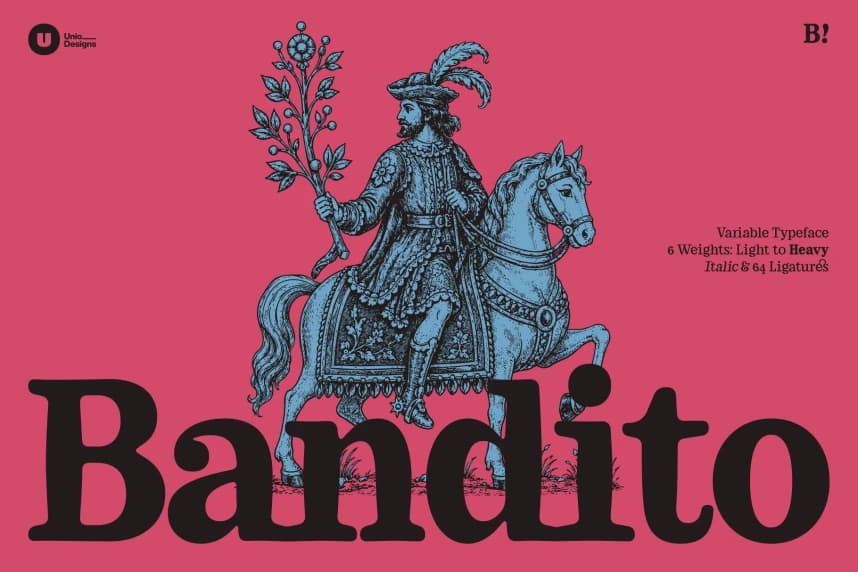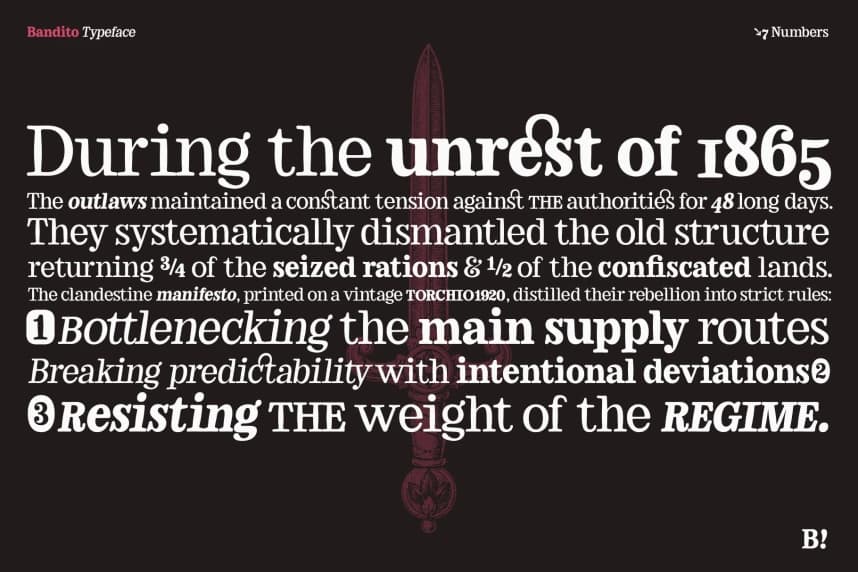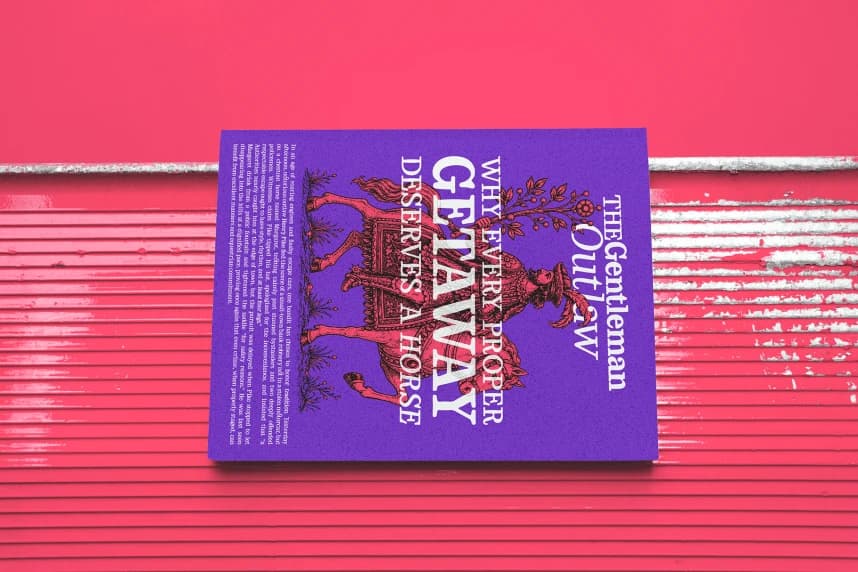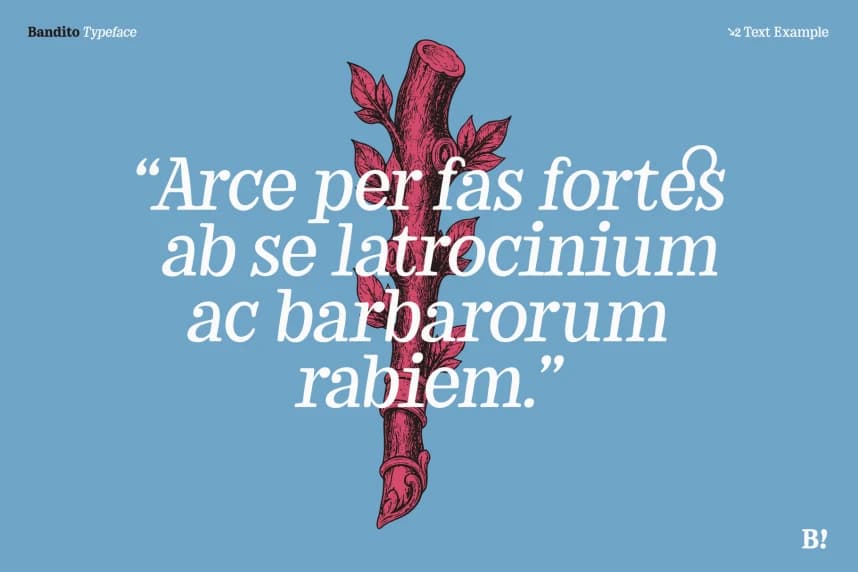
Bandito – Variable Serif Typeface
Bandito - Variable Serif Typeface is a contemporary rounded serif typeface rooted in the warmth and vitality of Italian typography. Inspired by vintage posters and a strongly expressive graphic tradition